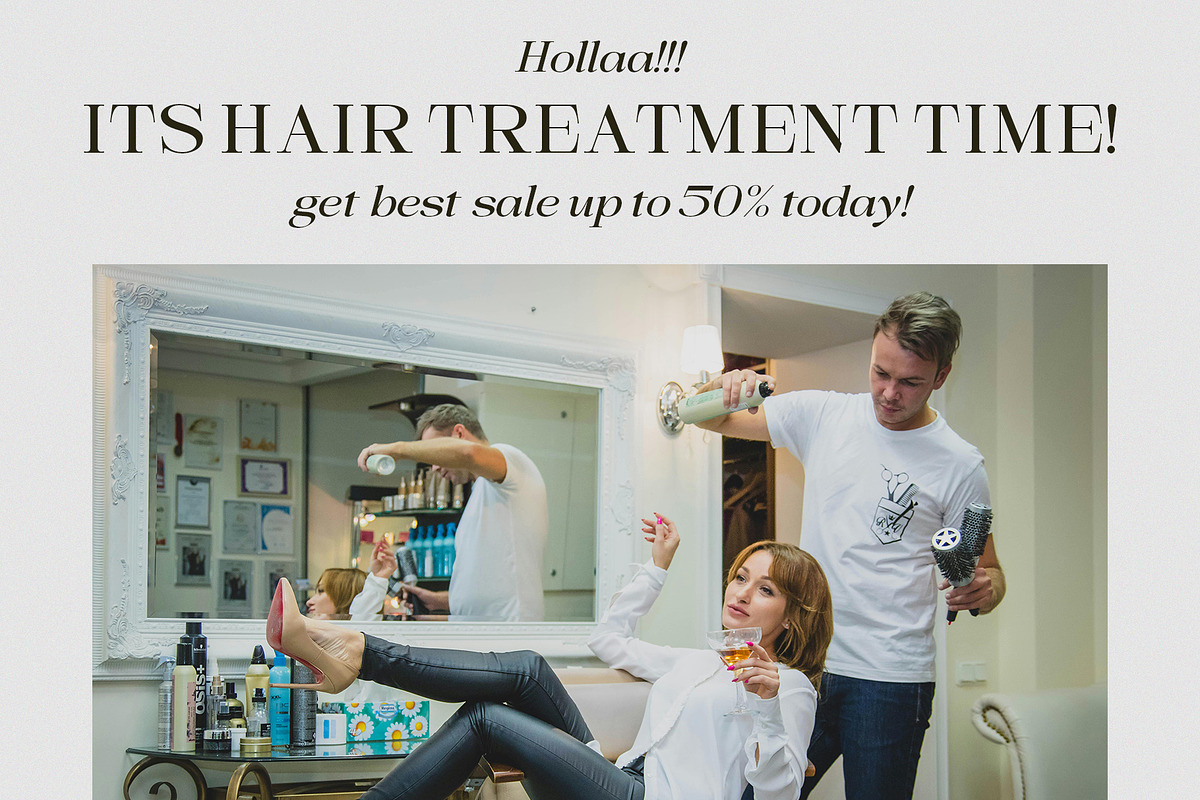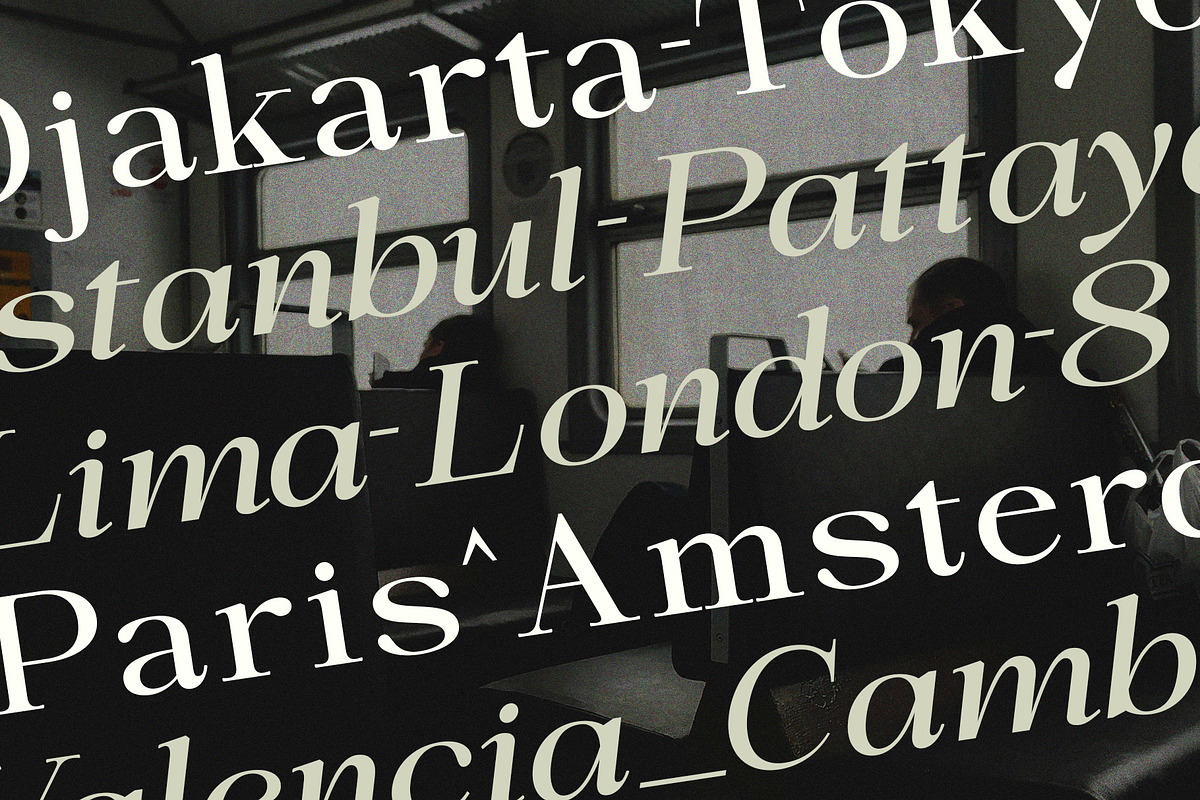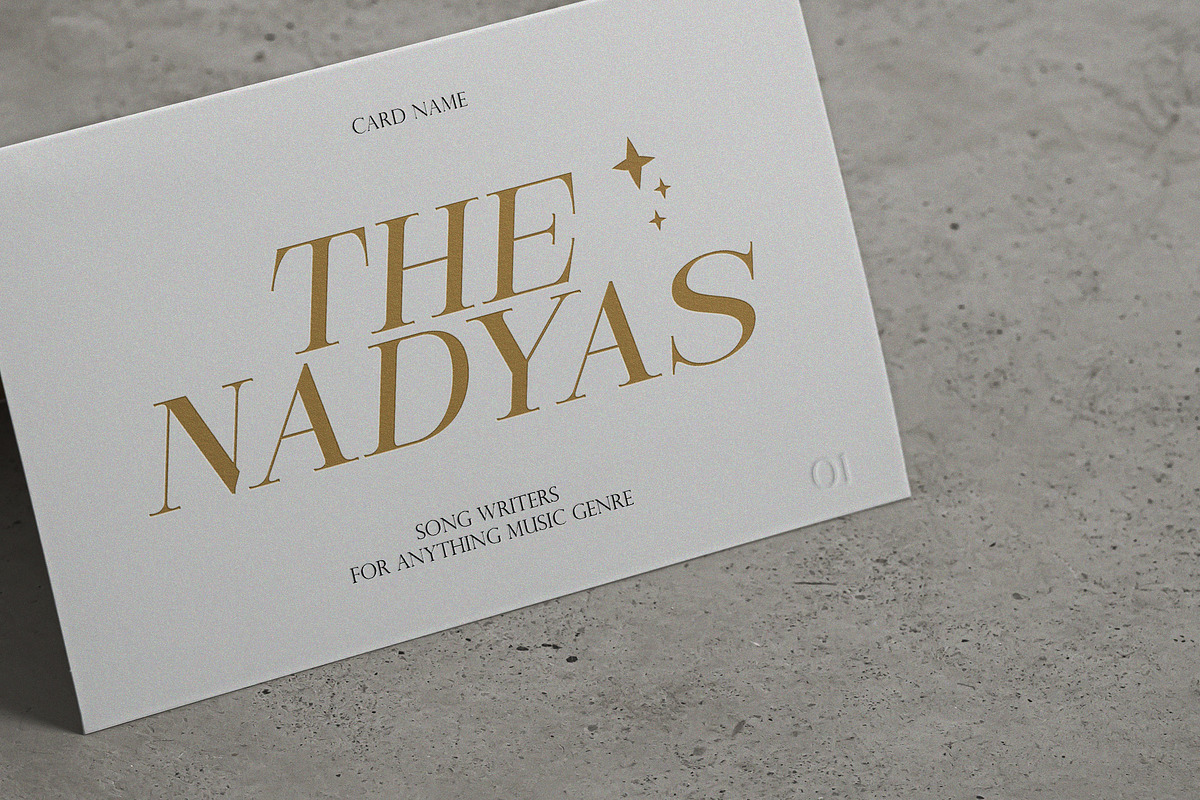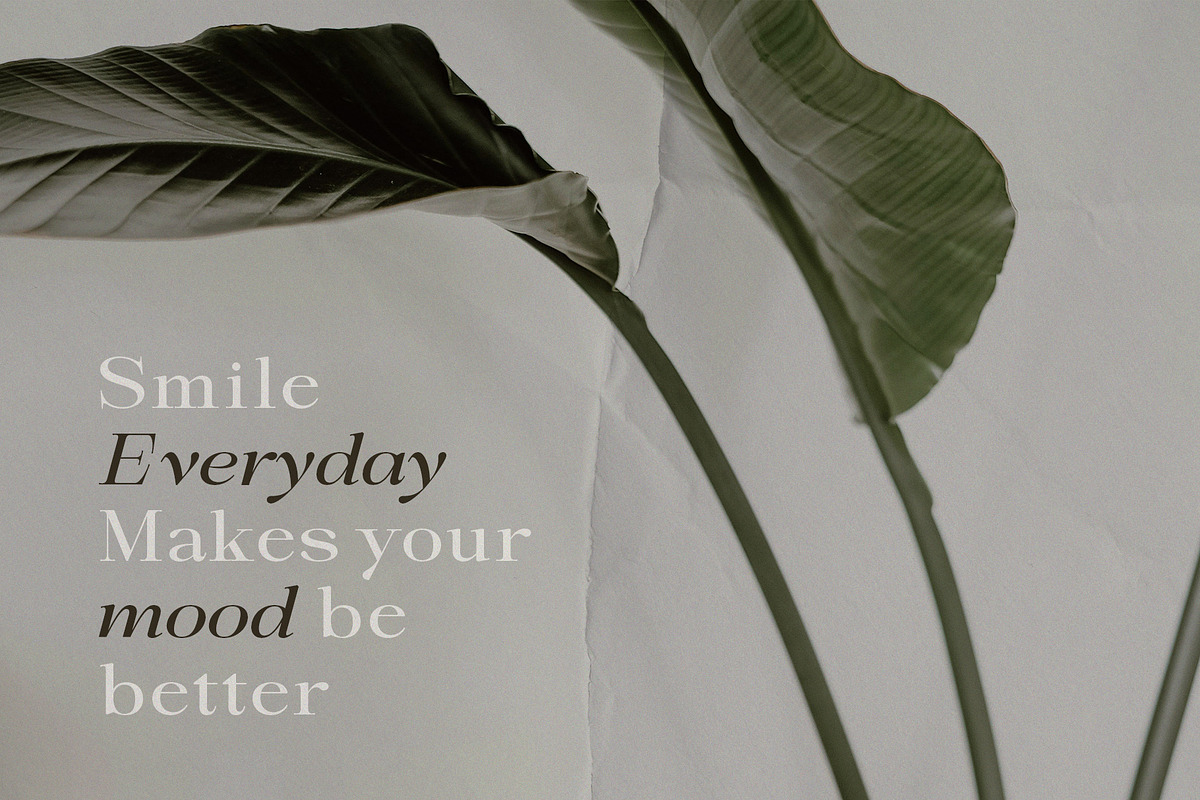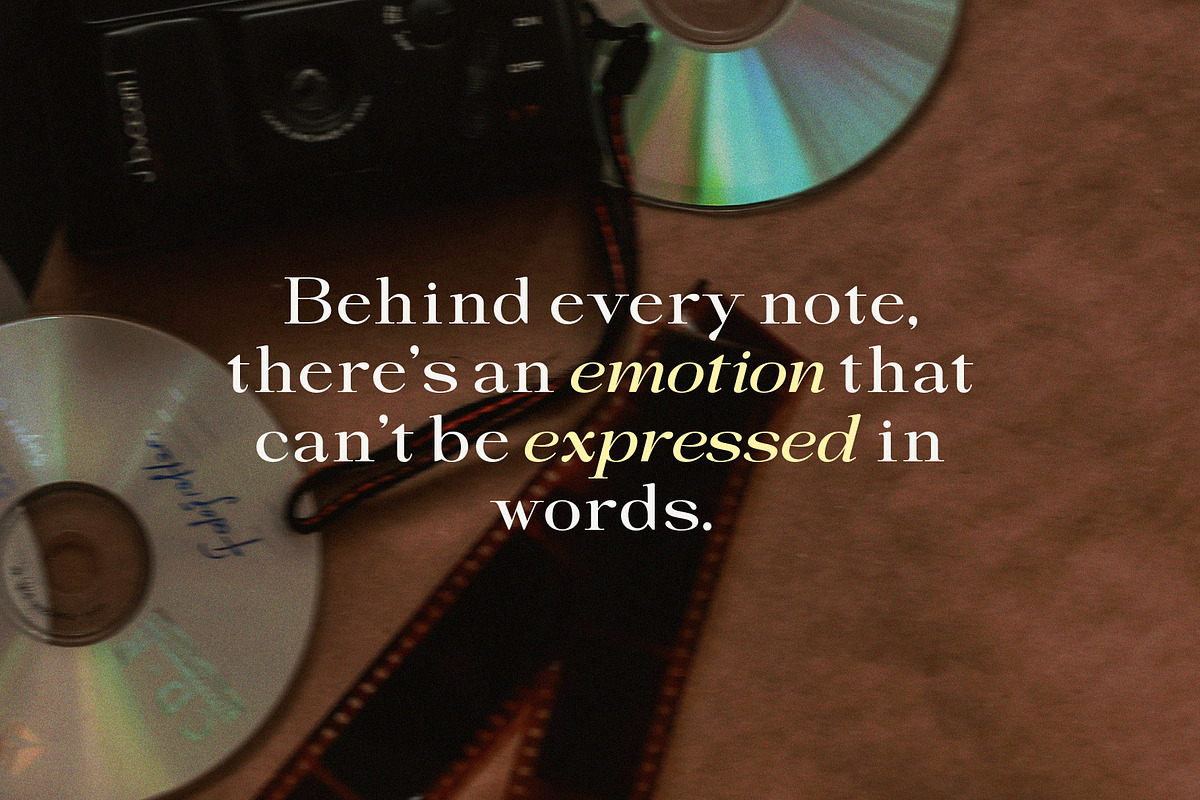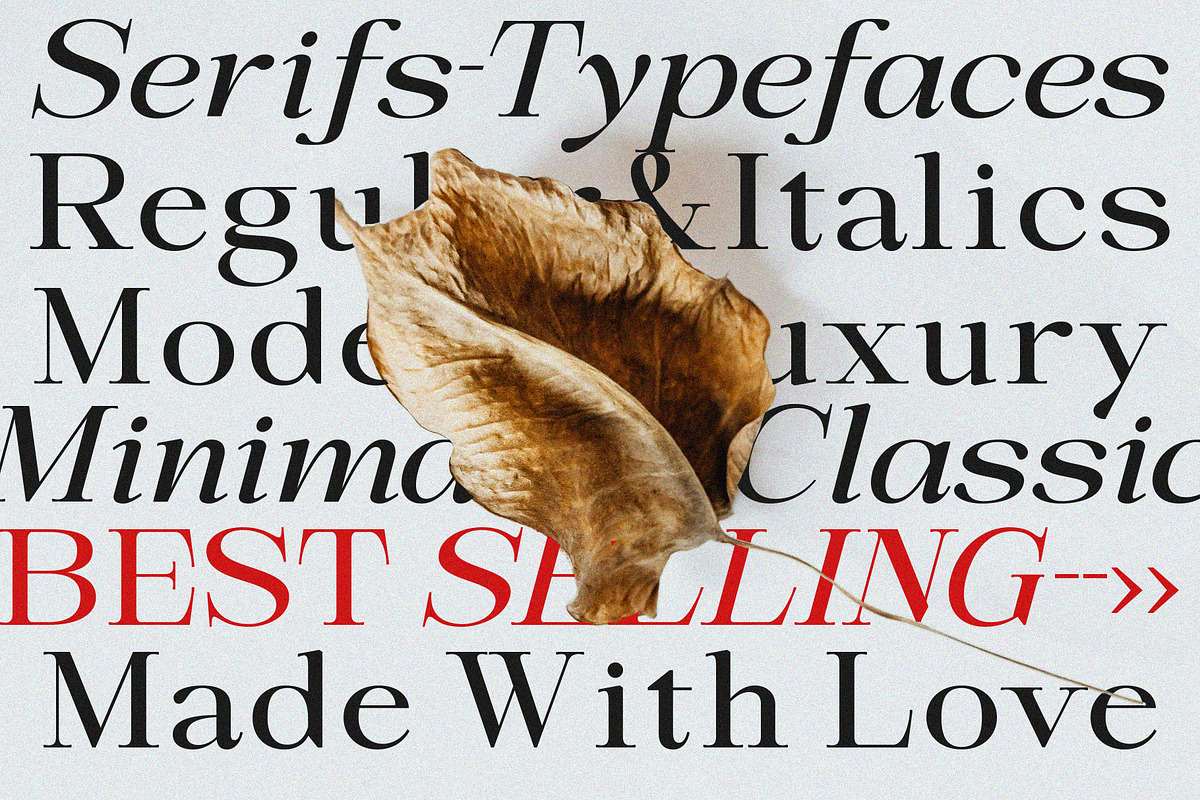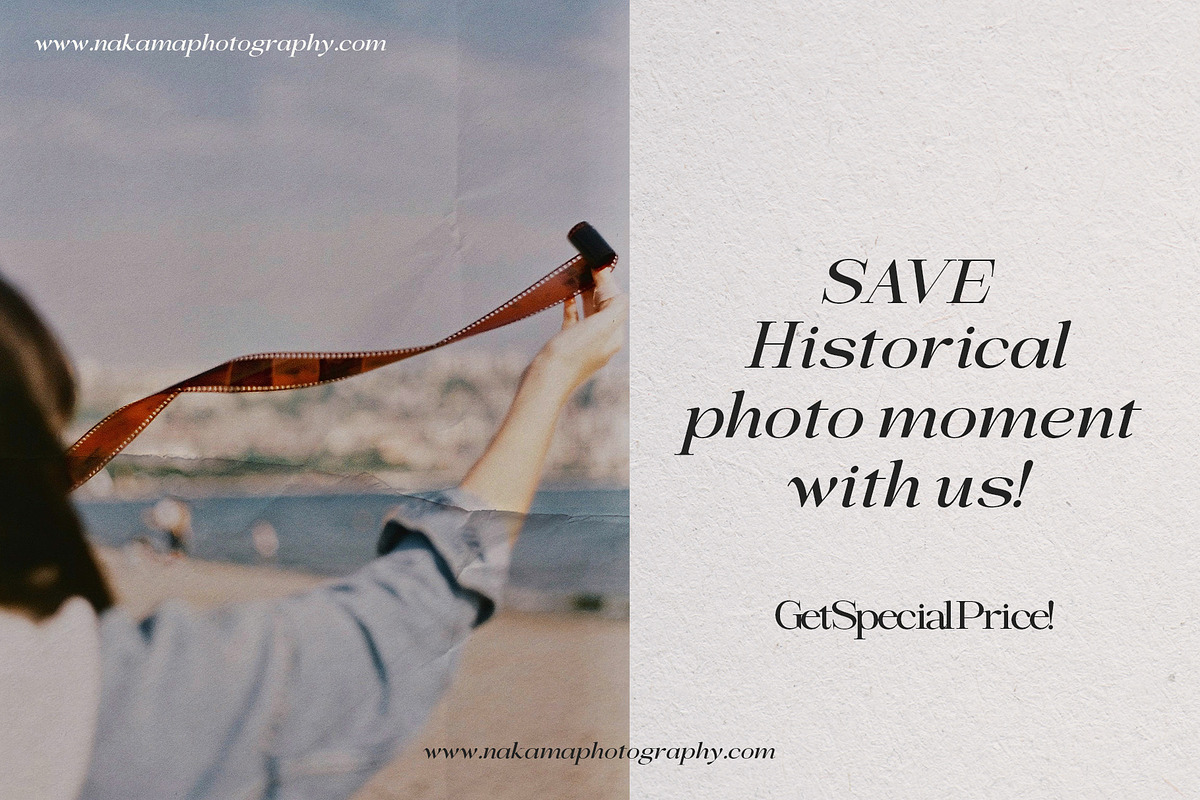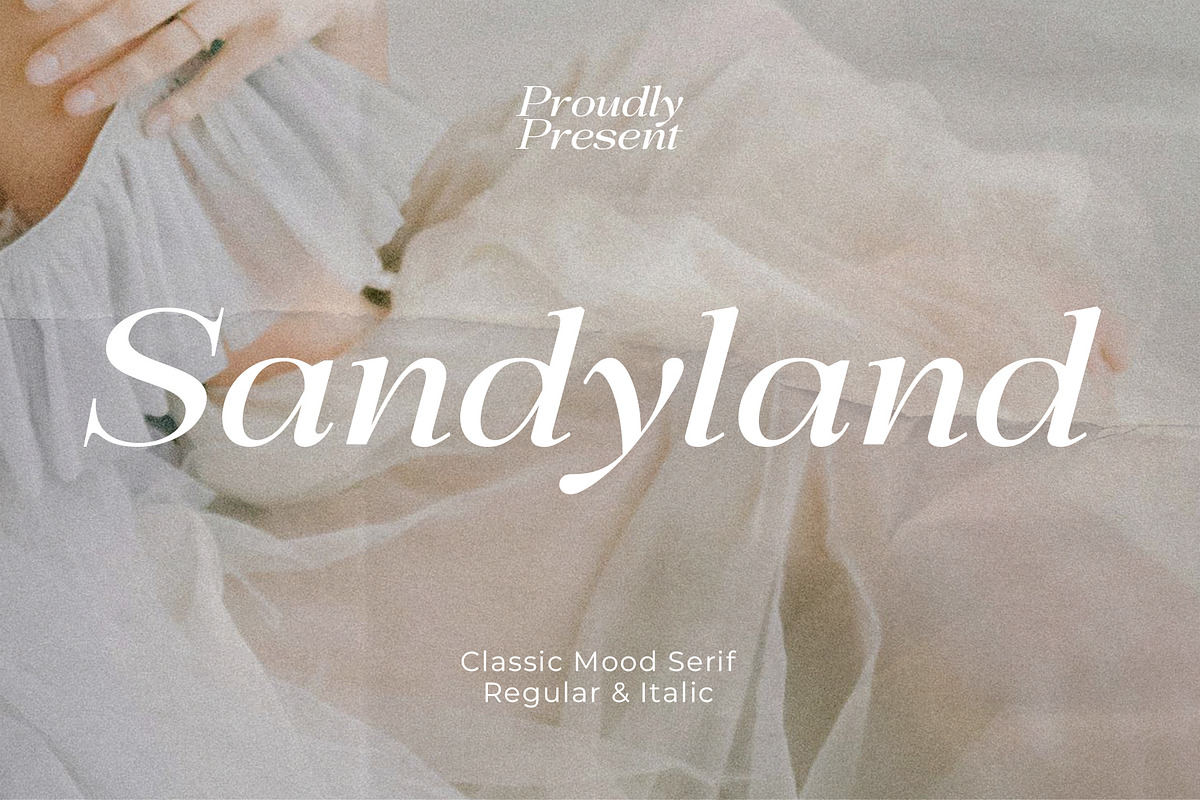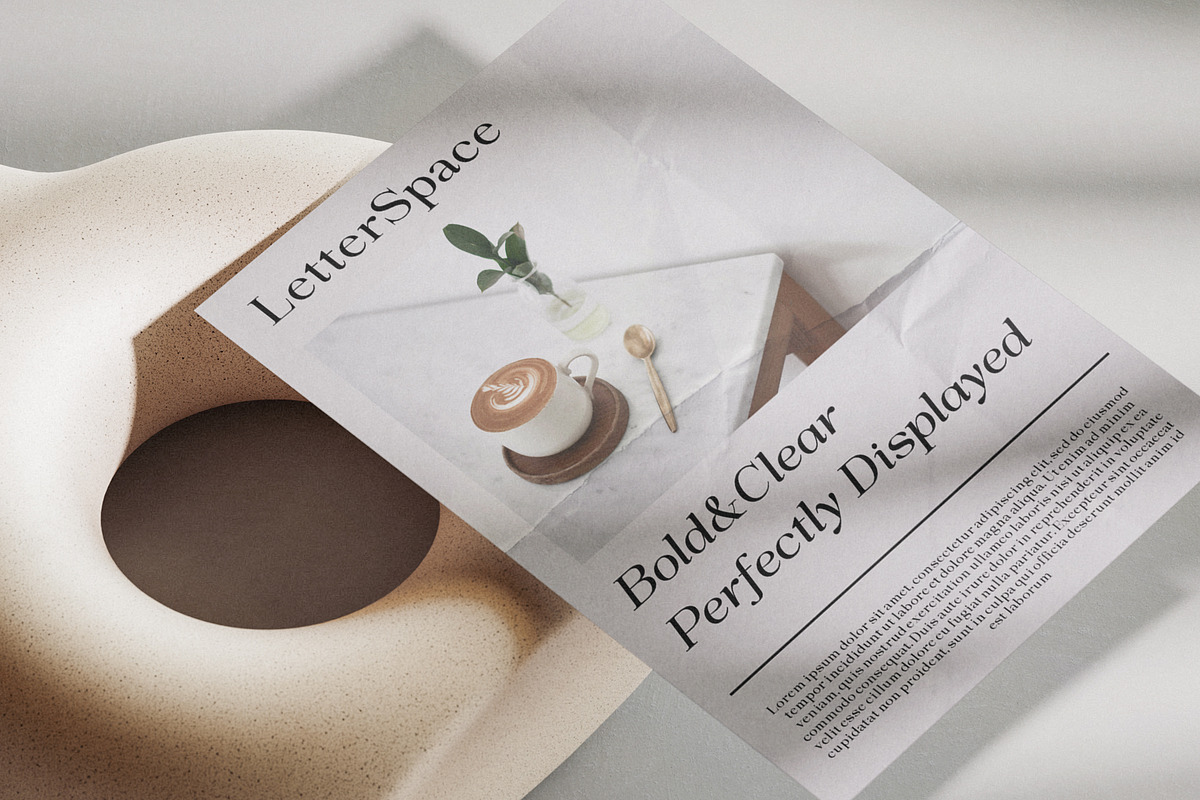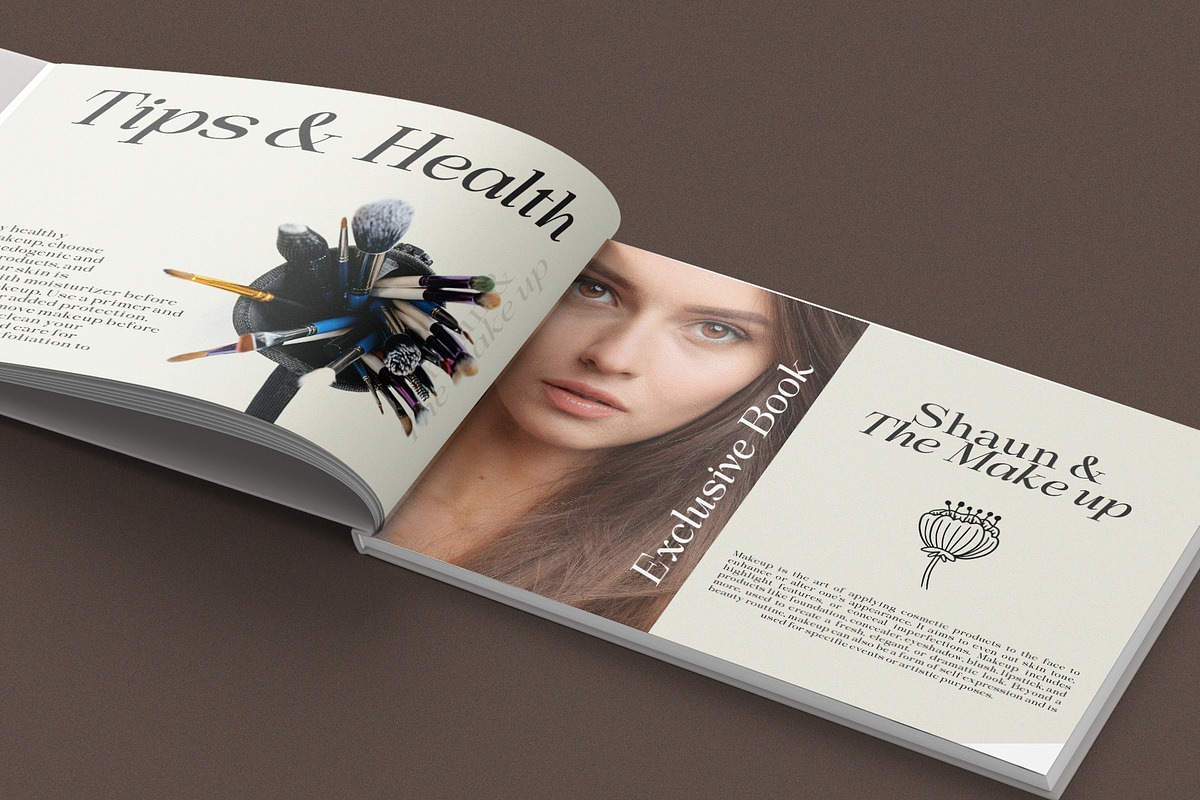
Sandyland Serif
Introducing the new Sandyland Modern with Italic Serif!!! Sandyland is a modern, elegant, and sophisticated serif font, perfect for headlines, text fonts, logos, branding, magazines, product packaging, and invitations. Sandyland features clean lines and smooth curves, adding an extra touch of class to any project.
Sandyland comes in both Regular and Italic versions, with numbers, punctuation, and support for other languages.